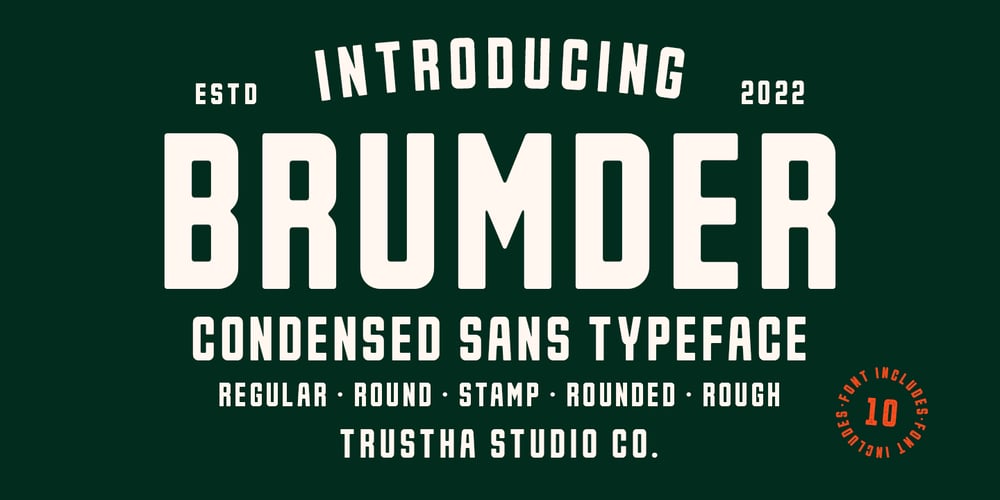
Brumder
Brumder font
Brumder Font Family was designed by Bagas Ardiatma and published by Trustha. Brumder contains 10 styles and family package options. Brumder is a condensed sans serif typeface. Inspired by Industrial style. Comes in several styles namely regular, round, rounded, rough, and stamp, with matching oblique, making it 10 styles. Brumder is perfect for branding, headlines, and many more.